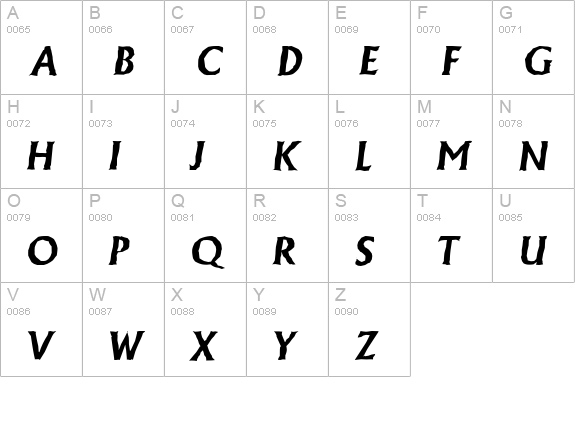
AdelonAntique-BoldItalic Font Details
AdelonAntique-BoldItalic is a sophisticated and elegant font that exudes a timeless charm with its bold and italic style. Its intricate details and classic design make it perfect for adding a touch of luxury to any project. The graceful curves and unique flourishes of this font give a sense of refinement and sophistication. Whether you are designing invitations, branding materials, or any creative project that requires a touch of sophistication, AdelonAntique-BoldItalic is sure to make a statement. Its versatility allows it to be used for various purposes while maintaining its elegant appeal. The best part is that AdelonAntique-BoldItalic is available for free download at FontsMarket.com. So, you can easily add this stunning font to your collection and elevate your designs with its timeless beauty. Don't miss out on the opportunity to enhance your projects with this exquisite typeface.